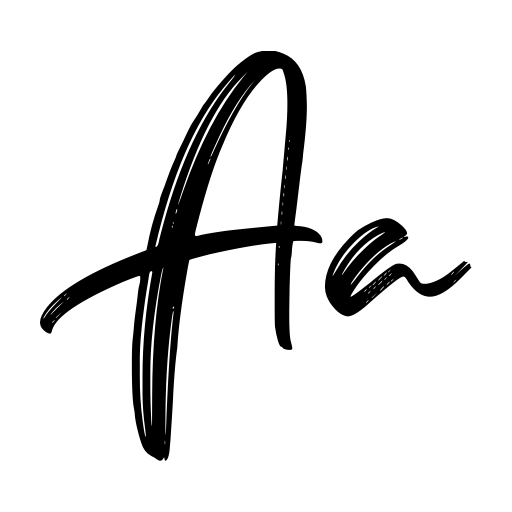
Bologna Script is a lively and expressive handwritten script font characterized by its bold, brush-like strokes and dynamic flow. It features a mix of fluid uppercase and lowercase letters with varying stroke widths, creating an energetic and artistic feel ideal for creative branding, invitations, and modern editorial design. This font brings a stylish, hand-crafted touch that works beautifully for projects seeking a personal yet sophisticated vibe.
Bologna Script Font
About Bologna Script Font
| Font family | Bologna Script Font |
| Designer | Abo Daniel 2021 |